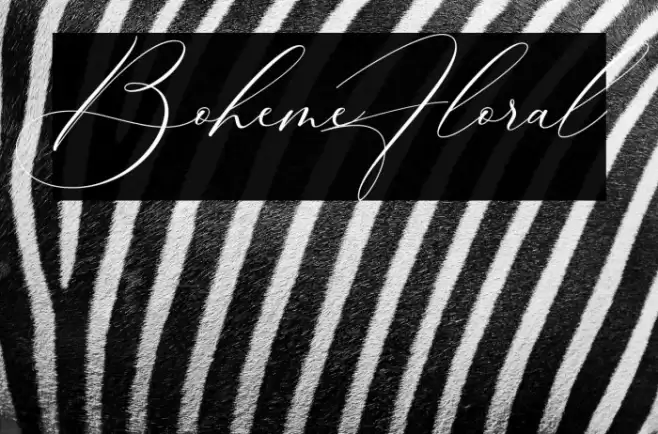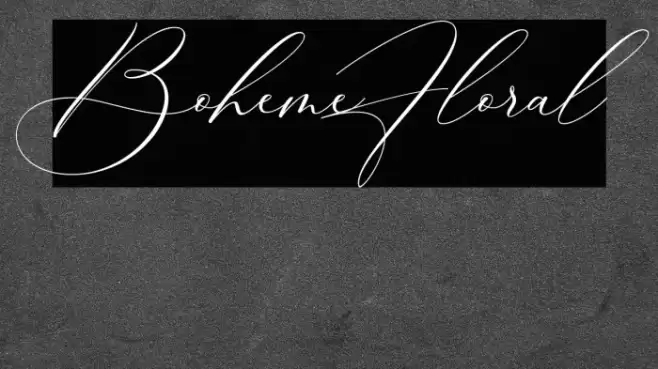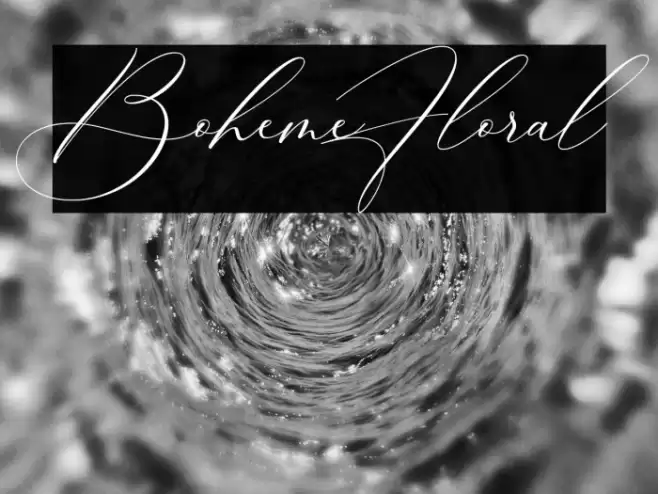
BohemeFloral Font
BohemeFloral Description
This elegant script font features a flowing, cursive style with delicate, sweeping strokes that convey a sense of sophistication and grace. The uppercase letters are characterized by their elaborate loops and flourishes, while the lowercase letters maintain a consistent, fluid motion. The numerals and special characters are crafted with the same attention to detail, ensuring a cohesive look across all glyphs. The font's thin lines and high contrast between thick and thin strokes add to its refined appearance, making it ideal for formal invitations, branding, and decorative purposes.
A sophisticated script font with elegant, flowing strokes and high contrast from Uncategorized fonts.
- Font: BohemeFloral
- Proposed Projects: Ideal for wedding invitations, luxury branding, elegant stationery, and decorative projects.
- Contrast: High
- Overall Style: Elegant, Decorative
- Use Case: Logos, Invitations, Decorative text